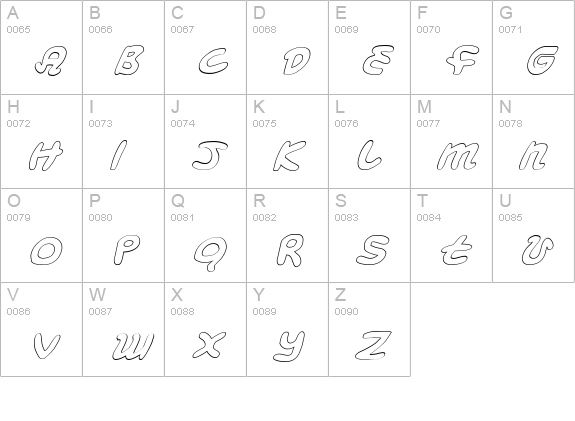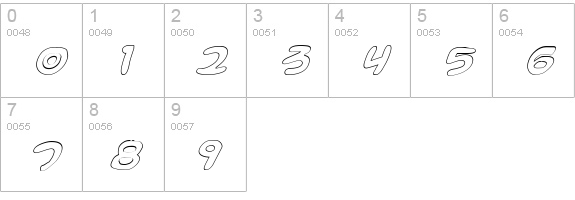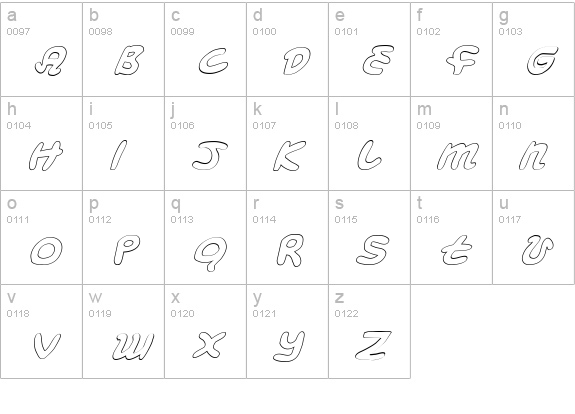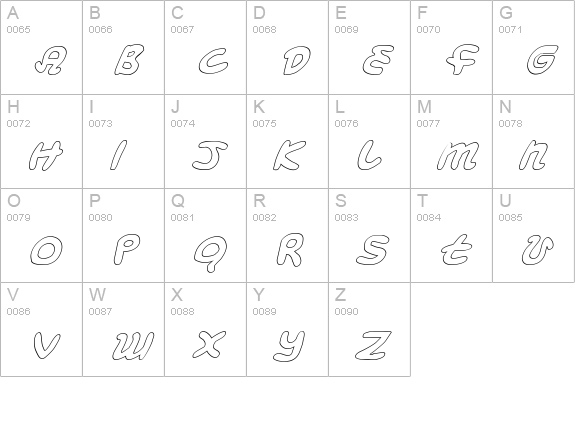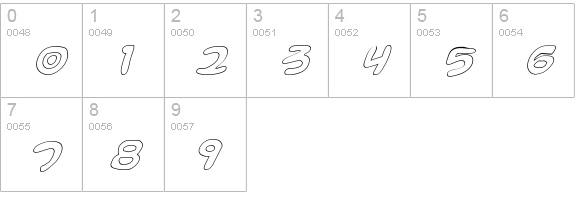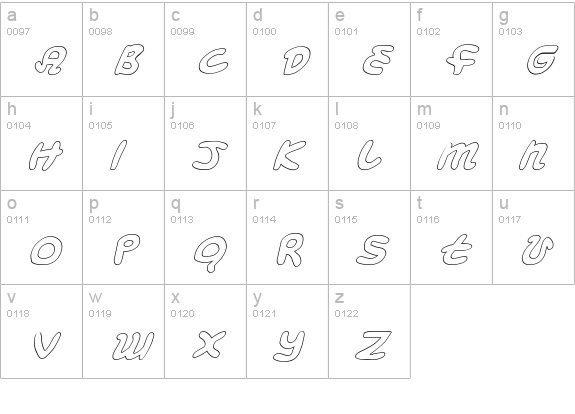
Magic Beans Outline Italic Font Details
Magic Beans Outline Italic is a distinctive, italic variant in the Magic typeface family \xE2\x80\x94 well suited to design and typography projects.
Introducing Magic Beans Outline Italic font, a whimsical and playful typeface that will add a touch of magic to your designs. This unique font features delicate outlines with a stylish italic twist, making it perfect for projects that require a touch of charm and elegance. Magic Beans Outline Italic font is freely available to download at FontsMarket.com, making it accessible to all designers and creatives looking to add a bit of magic to their work. Whether you're creating invitations, posters, or branding materials, this font will help your designs stand out and captivate your audience. With its enchanting aesthetic and versatile appeal, Magic Beans Outline Italic font is a must-have addition to your font collection. Download it today and unleash the magic in your designs!